ITF (the Indian Type Foundry) has launched a brand new font service to bring beautiful typography to every business for free.
The service, named Fontshare, will be familiar to anyone who has used Google Fonts. Browse the fonts list, pick out the styles you want, and add them to your site.
It’s a well-designed site; there are several options for browsing, list or grid views, editable sample text, and even a type layout tester.
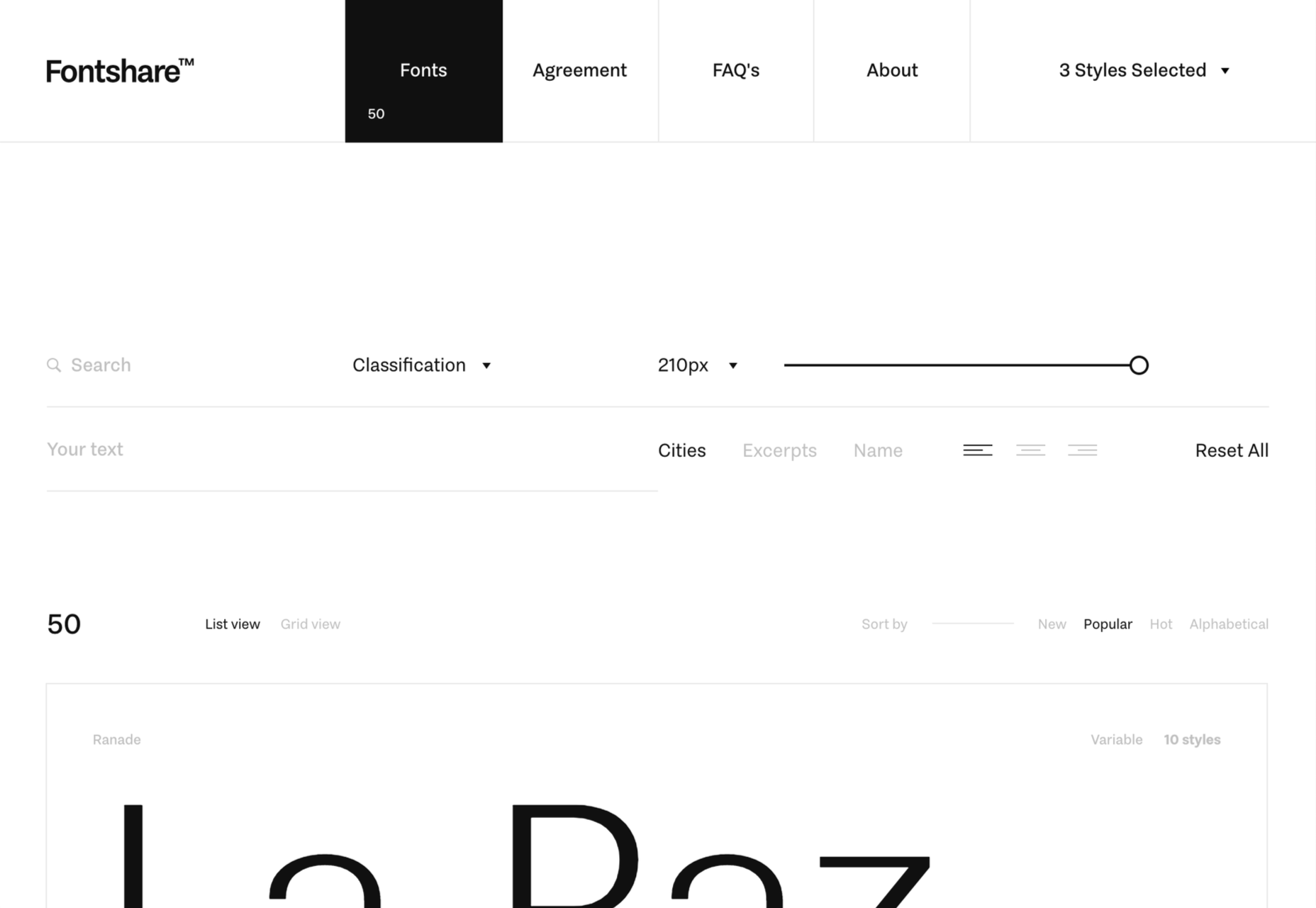
All of the fonts on Fontshare are owned by ITF, and there are no plans to extend the service to cover other foundries. As a result, there are far fewer fonts available than on Google Fonts. However, the fonts’ quality is consistently excellent and higher than many proffered by Google’s service. ITF is so confident in its craftsmanship that letters are presented with their outlines so you can examine their curves.
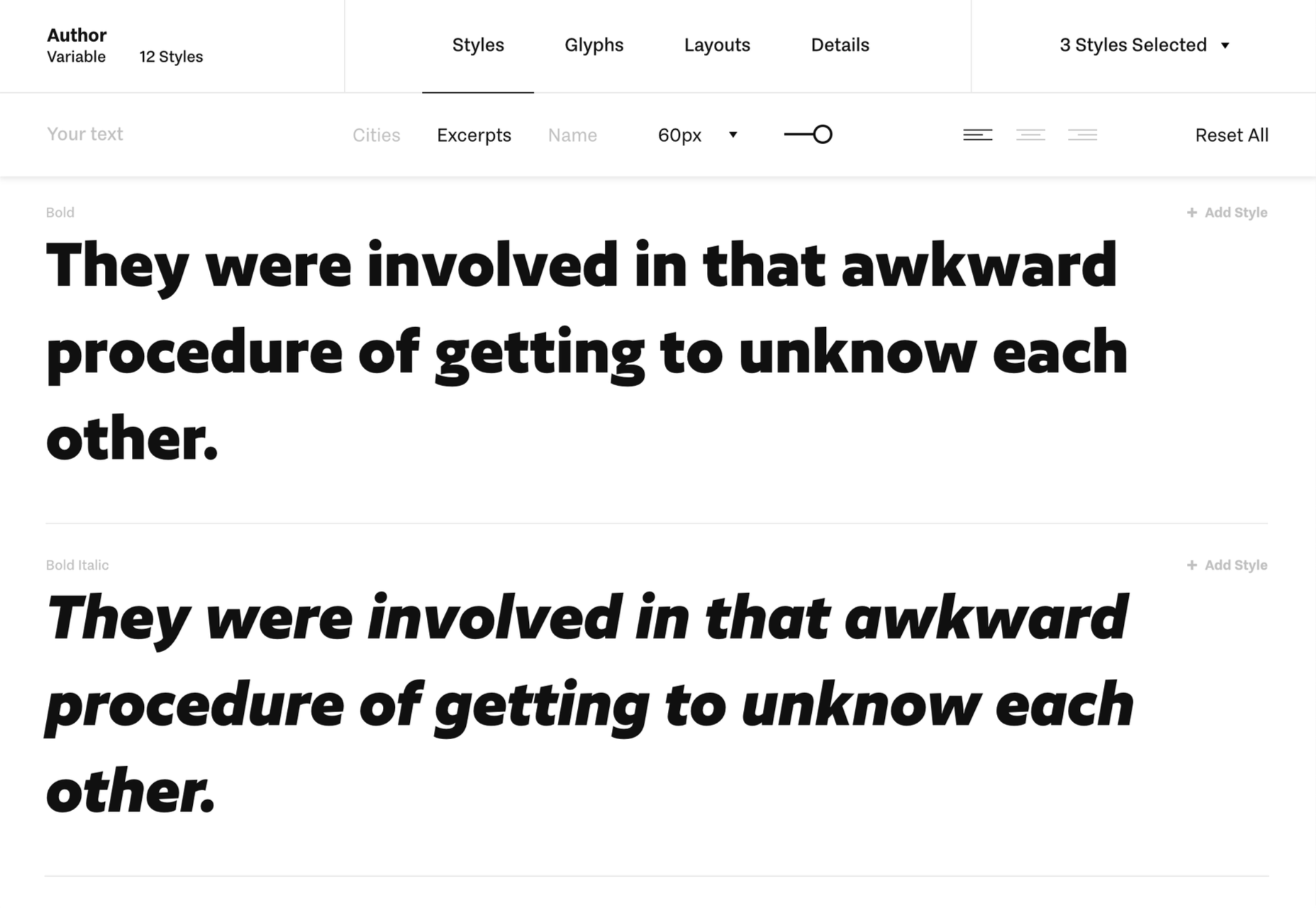
Fontshare currently boasts 50 typefaces, and moving forward, ITF has pledged to make 25% of its Latin typefaces available for free. It’s an extremely generous gesture and one that can only benefit the design community.